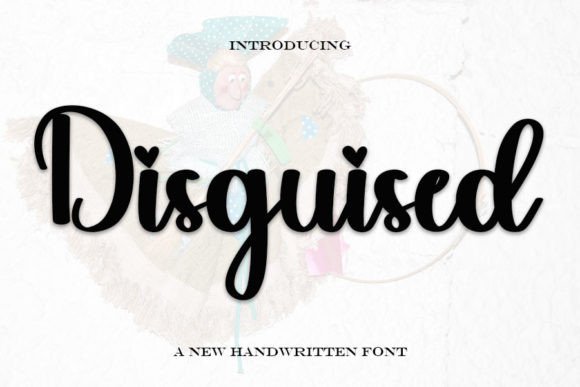
Introducing Disguised Font: A Script Sensation for Your Creative Endeavors
Disguised Font, a breathtaking creation by putrasyahreza00, is an exquisite handwritten font that oozes elegance and charm. Its graceful strokes, meticulously crafted with a touch of sophistication, will transform your designs into captivating masterpieces. Immerse yourself in the allure of this script font and let your imagination run wild.
For those seeking a font that embodies both beauty and functionality, Disguised Font stands as a true gem. Its carefully designed characters exude a timeless charm, while its versatility ensures seamless integration into a wide array of projects. Whether you're crafting invitations, designing logos, creating social media graphics, or simply adding a touch of elegance to your personal projects, Disguised Font has you covered.
Step into a world of endless possibilities with Disguised Font. Its graceful curves and delicate flourishes add a touch of sophistication to any project. Picture your words coming to life, imbued with an air of timeless elegance. From heartfelt letters to captivating marketing materials, Disguised Font elevates your message, leaving a lasting impression on your audience.
Unleash your creativity and embrace the magic of Disguised Font. Its intuitive design and effortless flow make it a joy to use. Let your imagination soar as you craft stunning designs that captivate and inspire. Disguised Font is not just a font; it's an artistic journey waiting to be embarked upon.
So, why settle for ordinary when you can embrace the extraordinary? Choose Disguised Font and watch your creative visions come to life. Indulge in its beauty, harness its versatility, and let your designs shine brighter than ever before. As putrasyahreza00, the font's creator, so eloquently puts it, "Disguised is perfect for your favorite projects. Fall in love with its incredibly distinct and timeless style, and use it to create spectacular designs!"